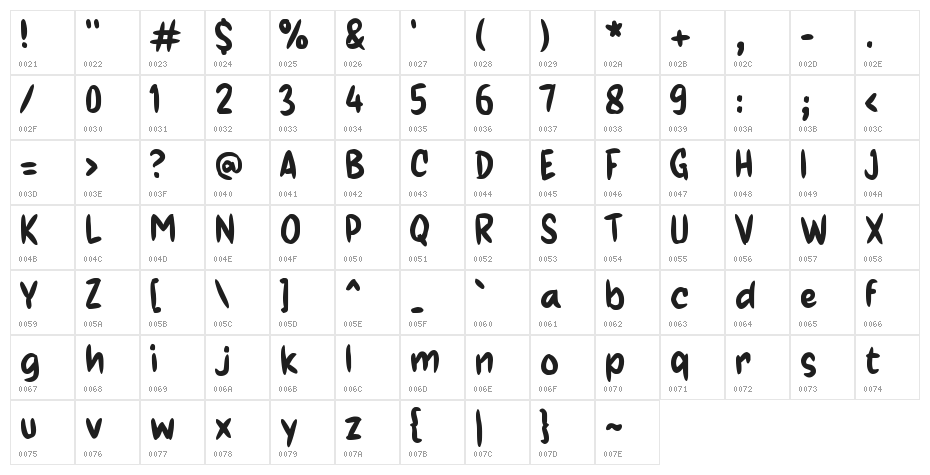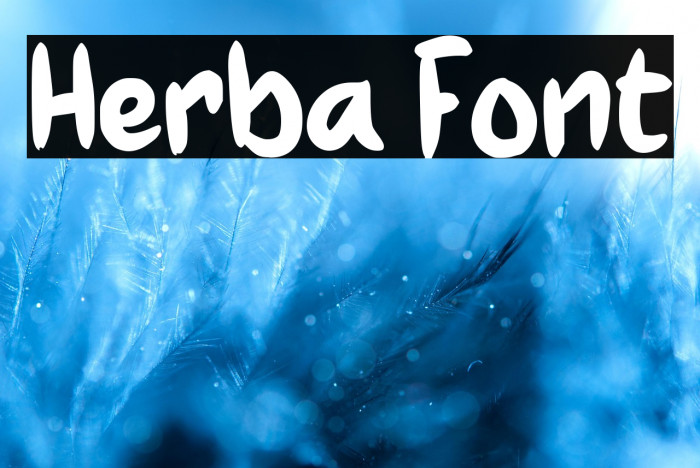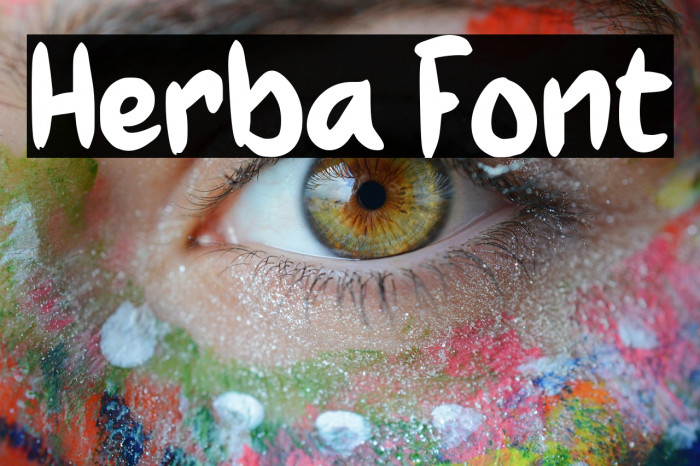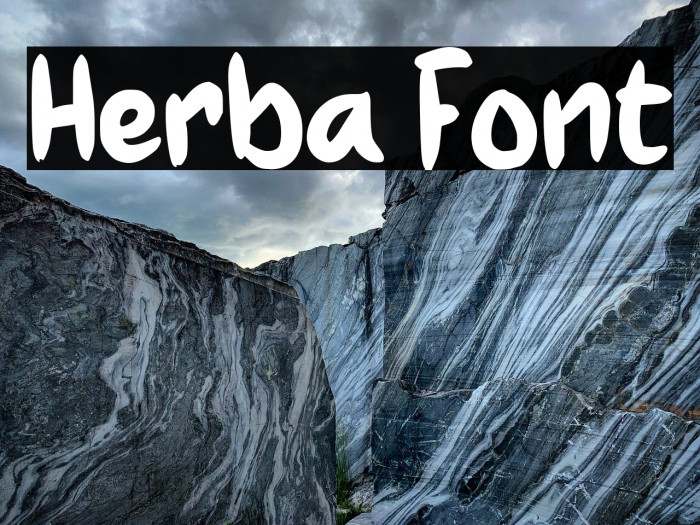
Herba Font
Herba Description
This font features a playful and bold handwritten style, characterized by its thick, rounded strokes and casual appearance. The letters are slightly irregular, giving it a dynamic and energetic feel. The uppercase and lowercase letters maintain a consistent style, with smooth curves and a friendly demeanor. Numbers and special characters are equally bold and expressive, making them stand out. This font is perfect for projects that require a personal touch or a fun, informal vibe. Its legibility is high due to the clear distinction between characters, despite the playful design.
| Proposed Projects | Ideal for children's books, playful branding, greeting cards, and casual invitations. |